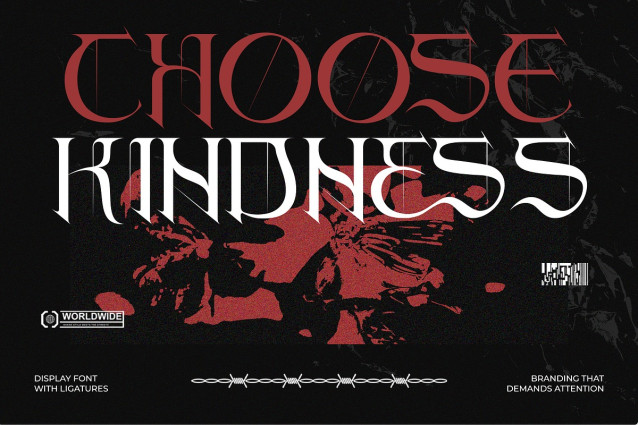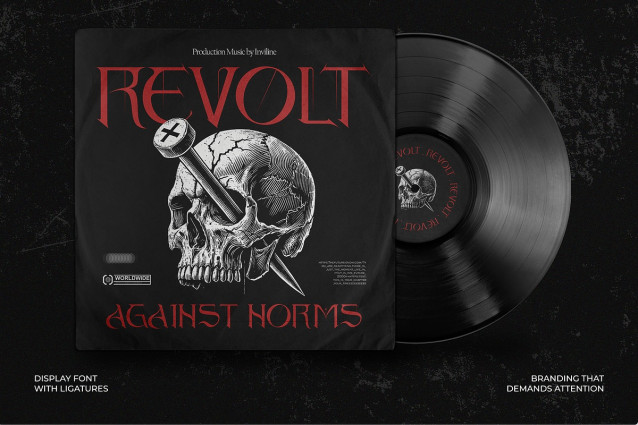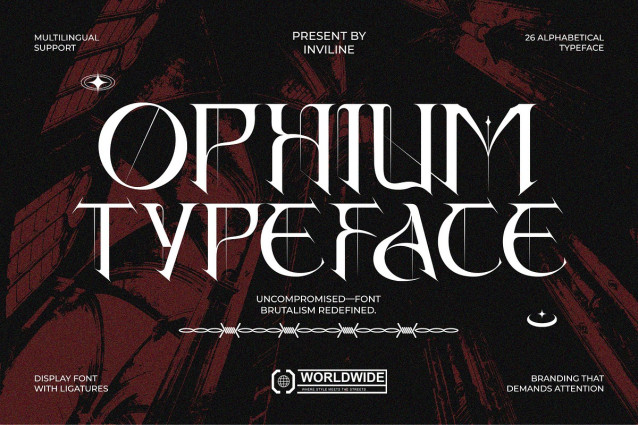
Ophium Font
Ophium Font is a bold crafted for brands that demand presence and power. With sharp, angular strokes and modern brutalist influence, Ophium blends the elegance of medieval blackletter with a contemporary streetwear edge. It includes uppercase, lowercase, numbers, punctuation, ligatures, and multilingual support, making it versatile for logos, apparel, album covers, posters, tattoos, and edgy branding. Perfect for designers seeking a typeface that radiates strength, rebellion, and artistry. Let Ophium give your project a dramatic and unforgettable impact.